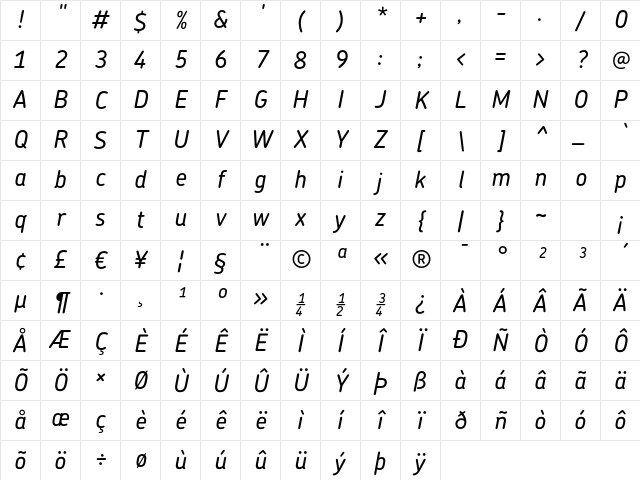
Chevin MediumItalic
Style: MediumItalic
Chevin Family
Complete Chevin MediumItalic glyph index. Displaying only characters natively supported by Chevin MediumItalic font.
Design Context for Chevin
Chevin is a composed and adaptable typeface that performs quietly and consistently across a wide range of design contexts. The slanted form adds forward momentum and visual energy.
Pro Tip: Use Chevin for emphasis, pull quotes, and subheadings where its slanted energy can add rhythm to the layout.